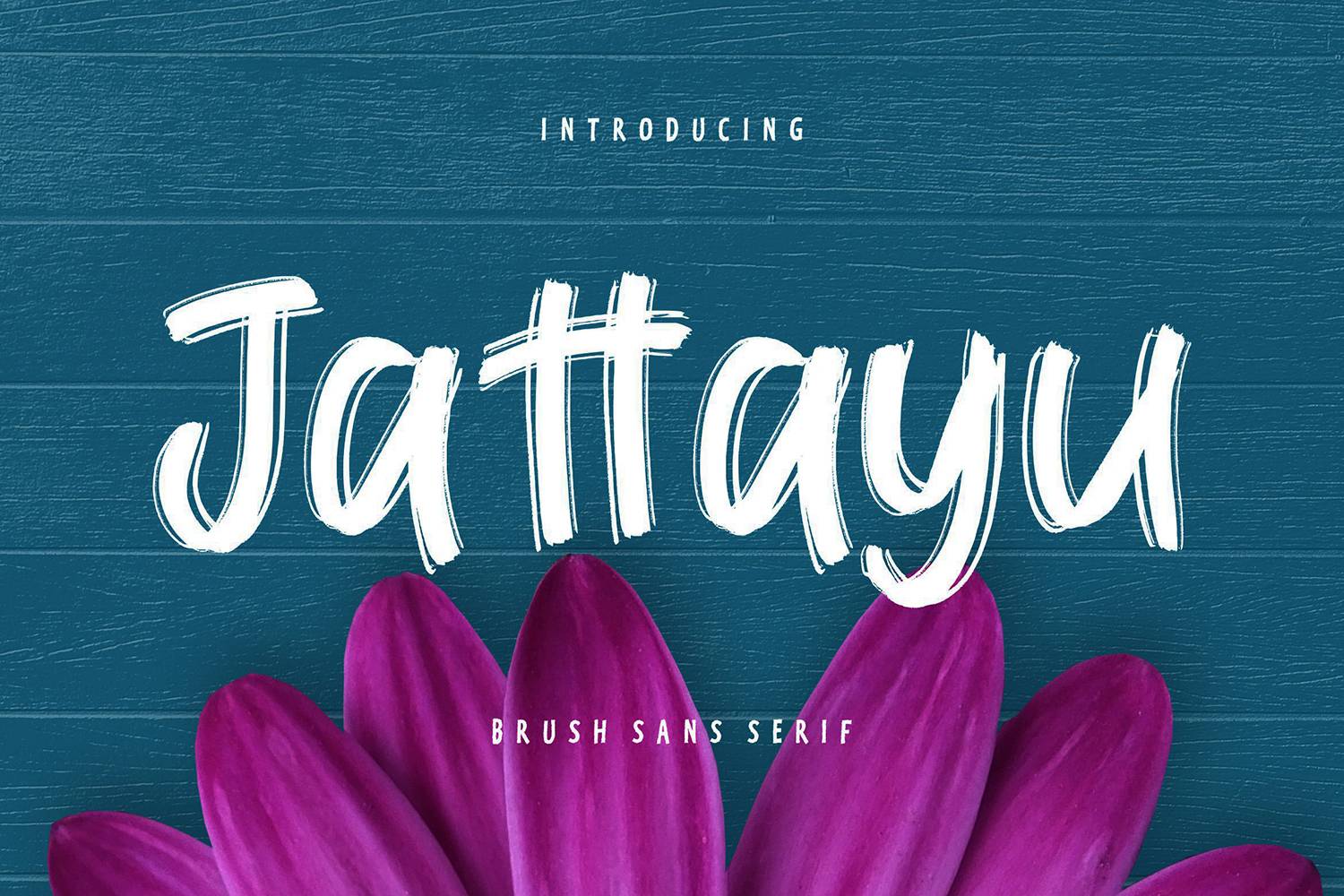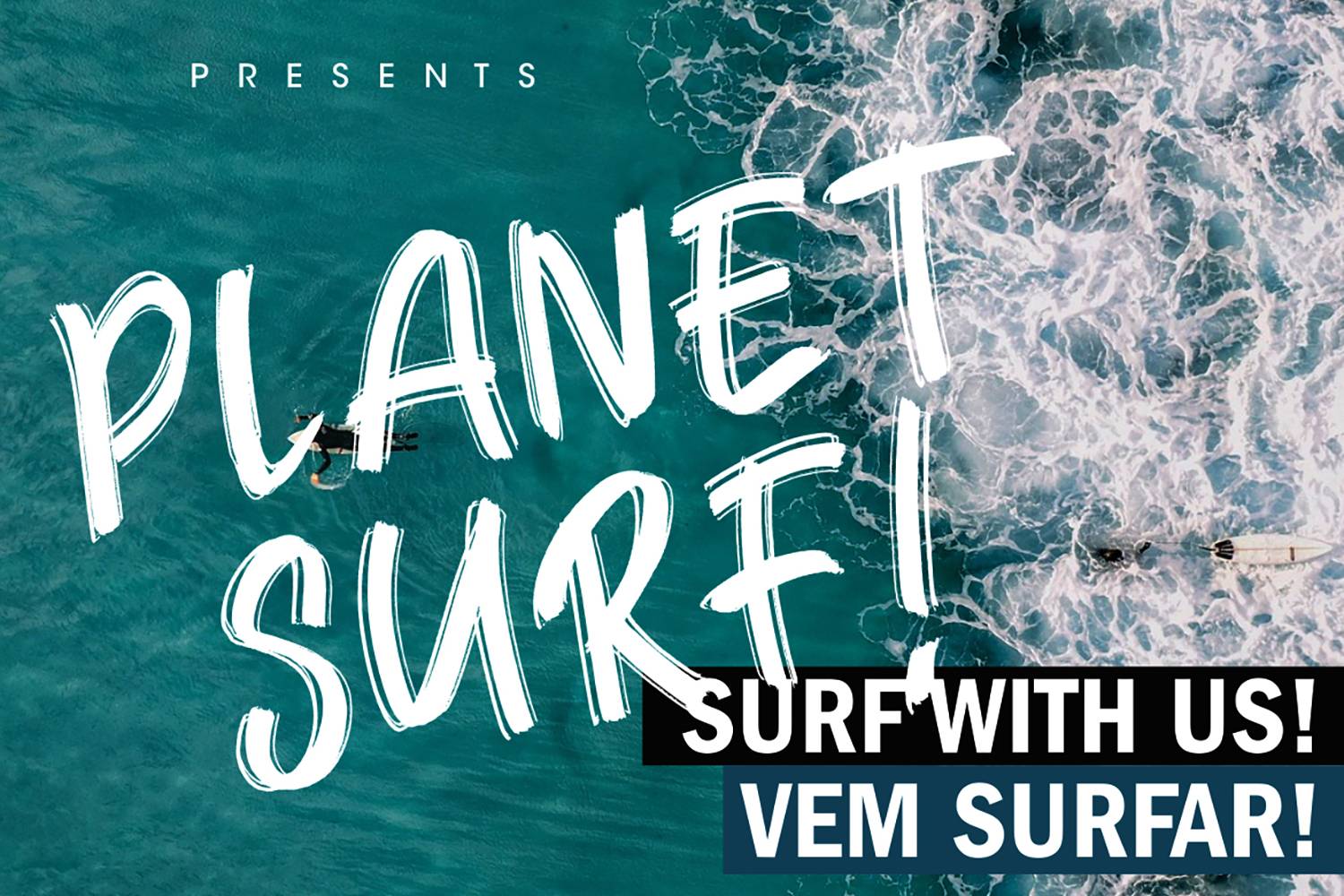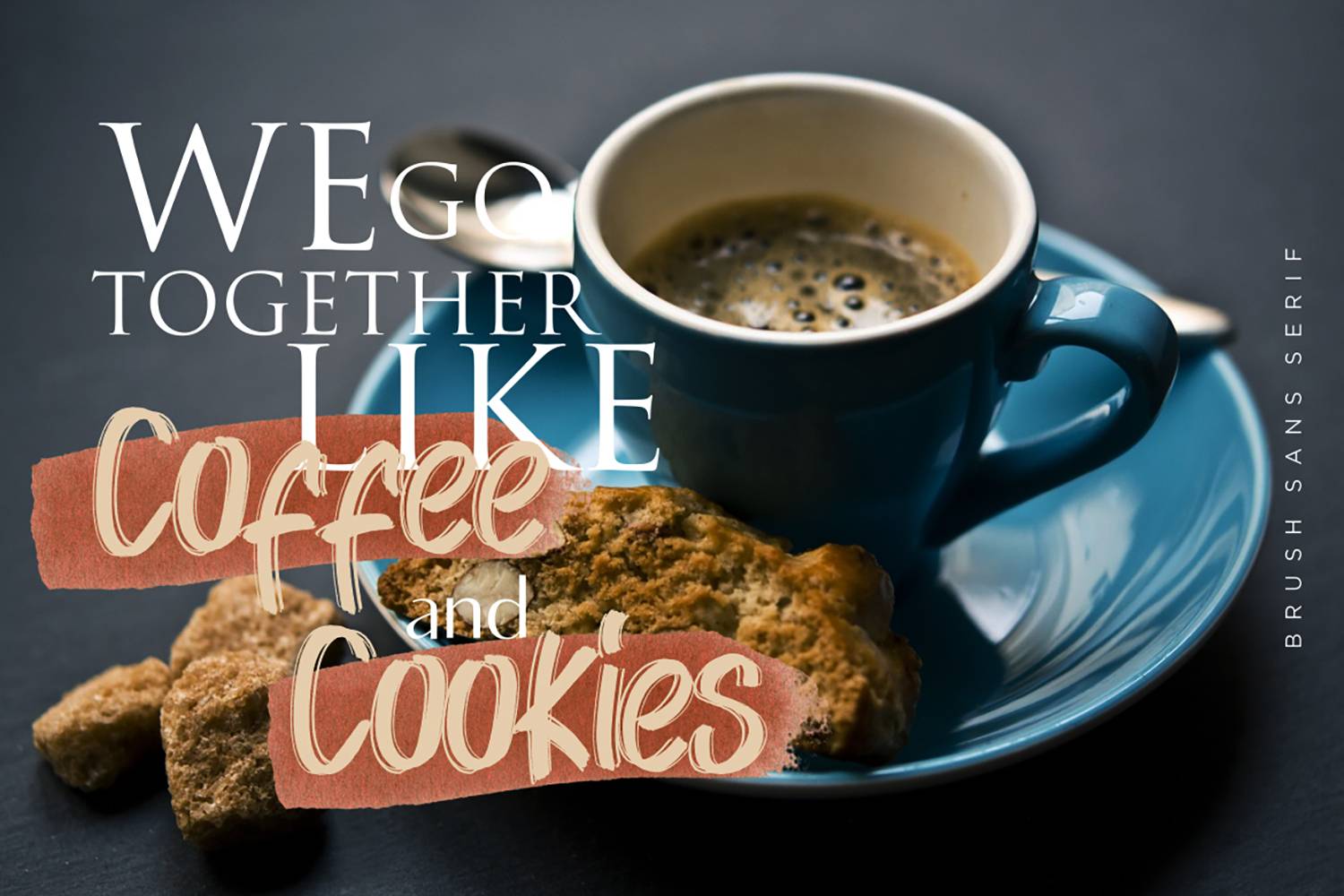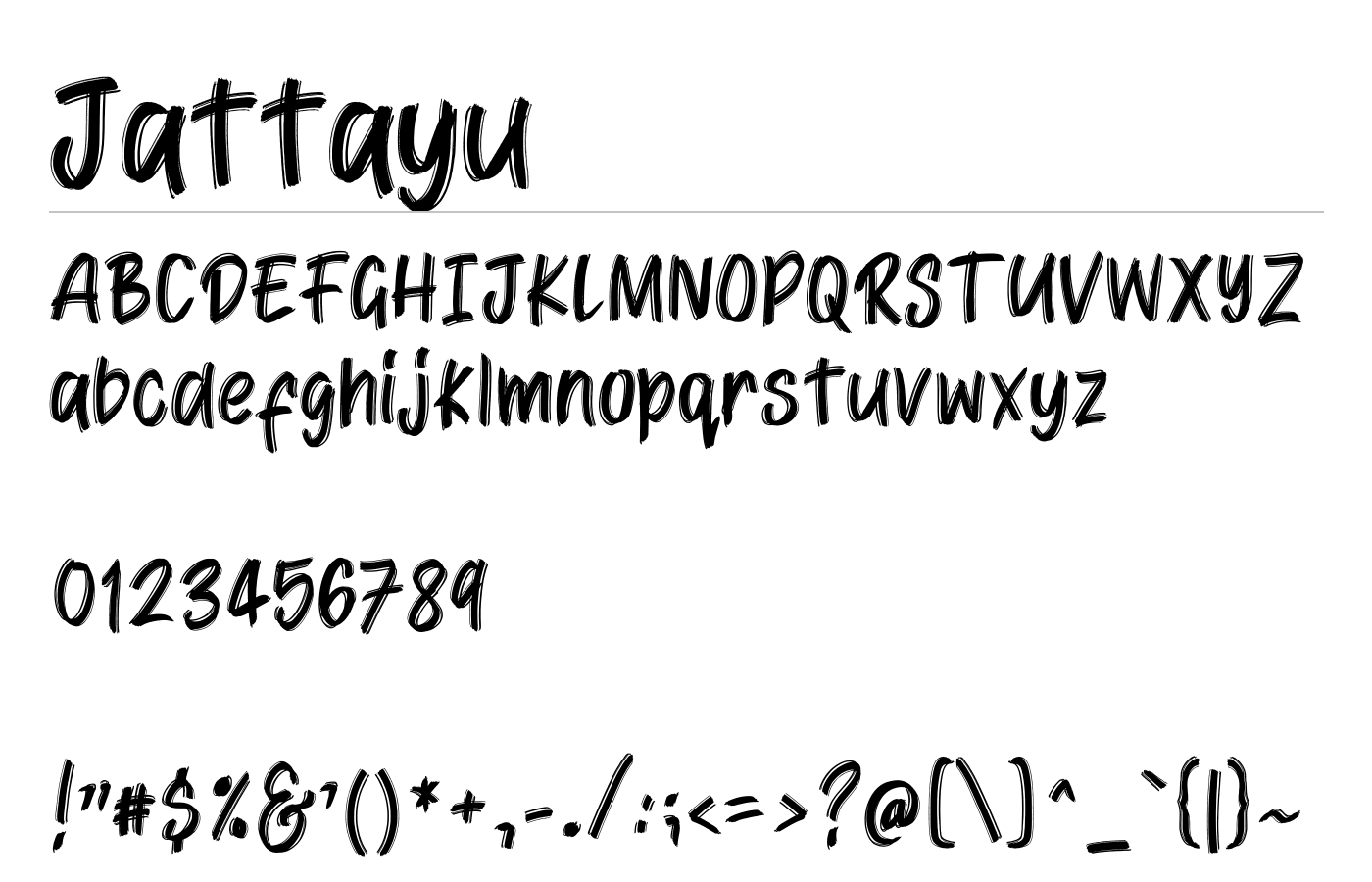
Jattayu is a lively, casual handwritten font with a playful brushstroke texture that adds personality and warmth. Its slightly irregular letterforms and medium weight create a friendly and approachable style, perfect for creative projects, informal branding, and eye-catching headlines that want to convey energy and charm. This font works well in contexts where a personal, artistic touch is desired, such as posters, greeting cards, and social media graphics.
Jattayu Font